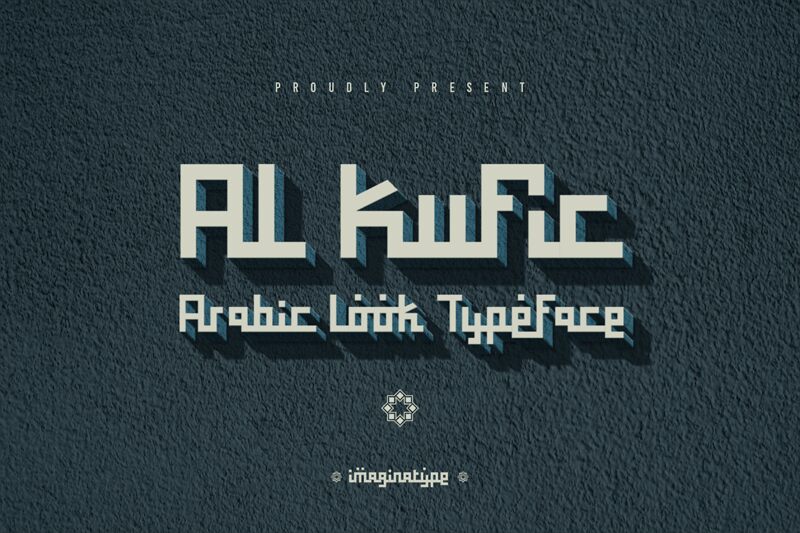
Al Kufic DEMO
Al Kufic font is brought to the table by Nuryanto Dwi in an innovative display approach that celebrates the uniqueness of the faux-Arabic style. Sporting a structured line presentation with geometric angles and a futuristic touch, each letter delivers elegance from all perspectives. Its rigid yet comfortable nature leaves little space for confusion; they please the eye in seconds.
A free modern display font holding multilingual capabilities, Al Kufic has potential in projects such as advertising, branding, product packaging and labels, and logo designs. The intriguing aesthetic has marketing abilities for poster design, flyers, magazines and newspapers and is ideal for headlines or body text.